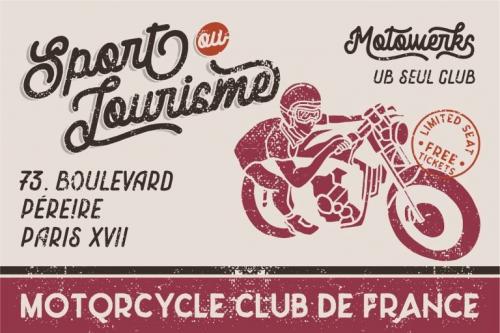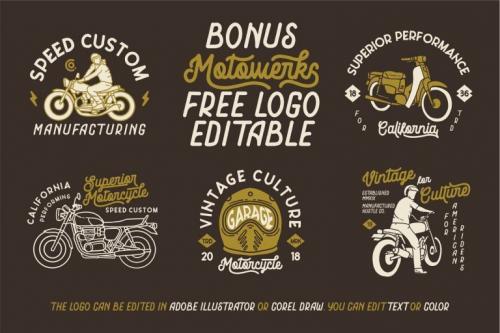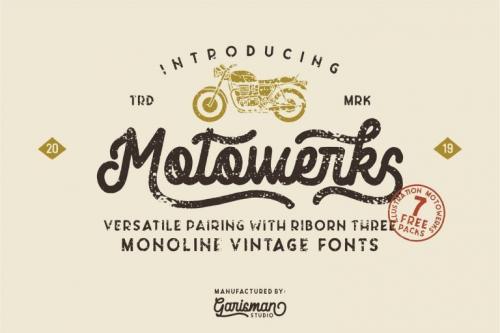
Motowerks Vintage Script Font born from inspiring vintage motorcycle stlye. And this fonts is handmade modern vintage monoline display typefaces, available with different opentype style characther and paired font with RIBORN Three (Included FREE on this product).
Versatile for many project you needed, like a logo type, handlettering, branding, label, t-shirt design, poster and many more.